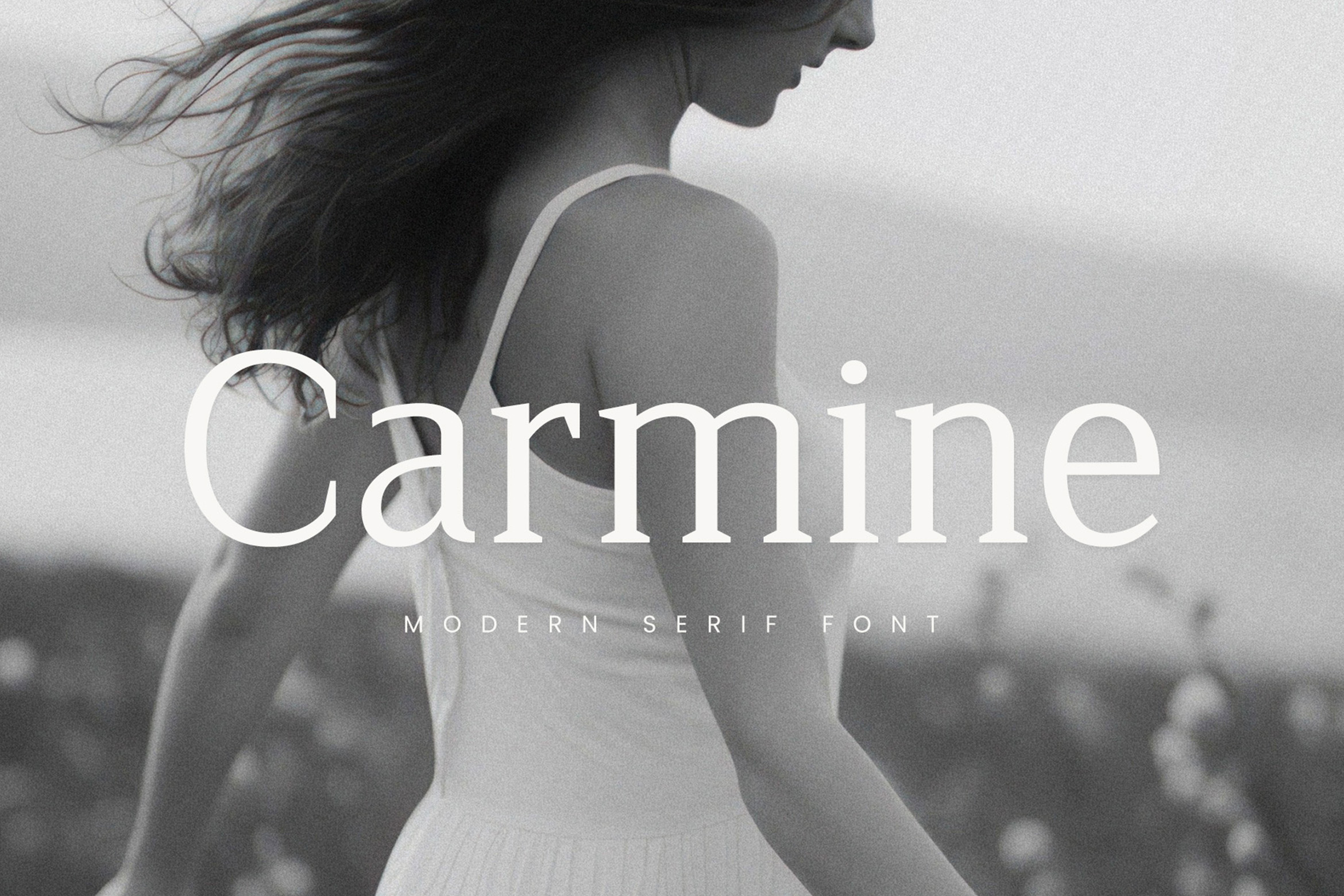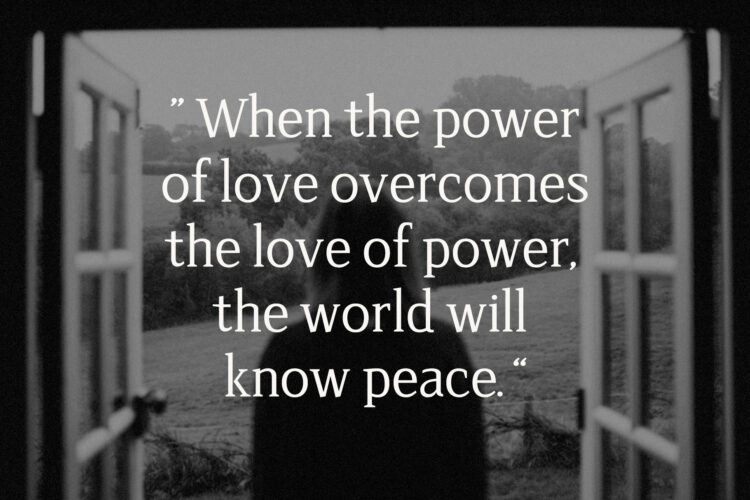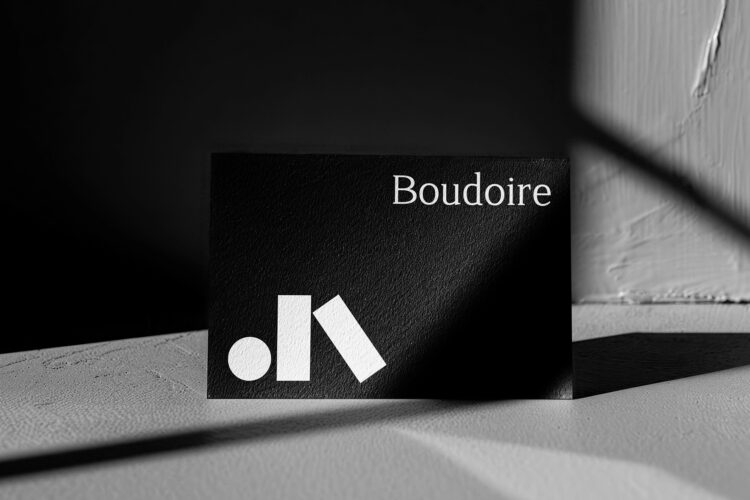
Introducing Carmine – Serif Font. Carmine is a simple serif font, This type of font is very suitable for your various needs such as branding projects, logos, social media posts, advertisements, labels, product packaging, photography, wedding designs, watermarks, invitation product designs, stationery, and any project.
Carmine – Serif Font